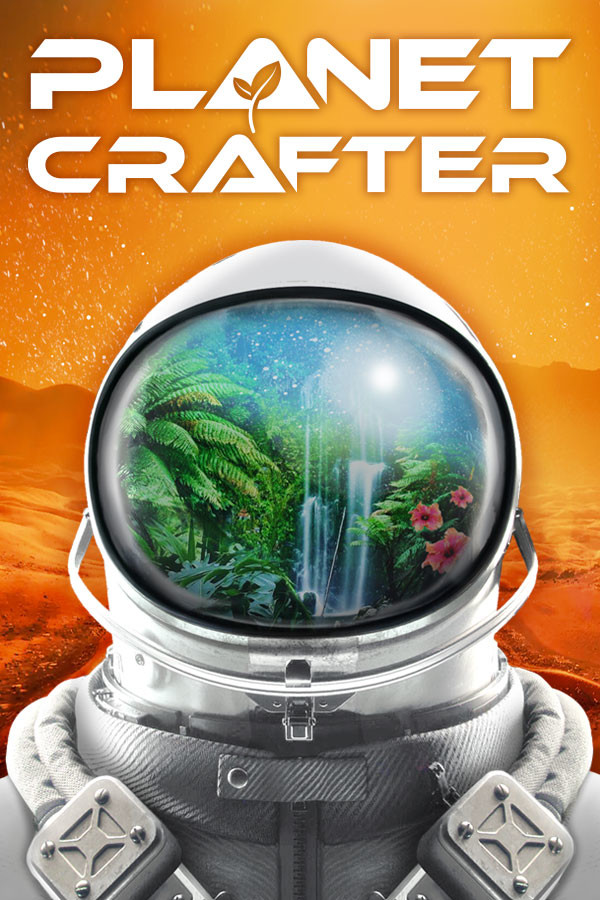
The Planet Crafter Font
Action & AdventureThe Planet Crafter is an action, survival single-person game developed by Miju Games. The central mechanics of the game involves terraforming, the player lands on an inhospitable planet on which he must survive and gradually make habitable. The Planet Crafter game title was designed using Ethnocentric from Typodermic Fonts.